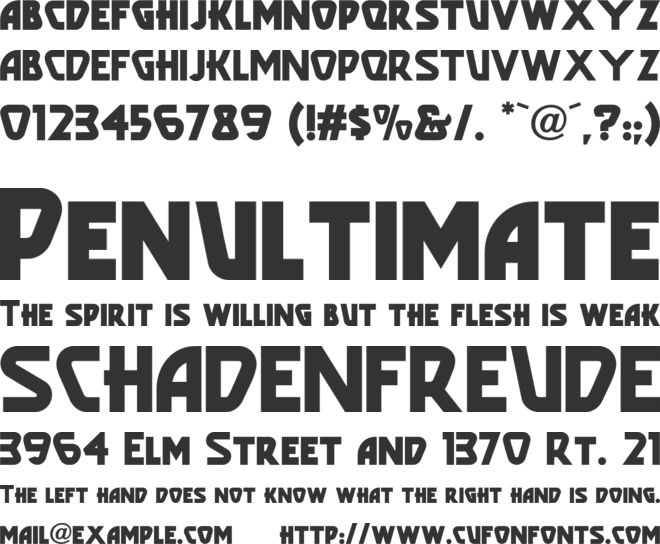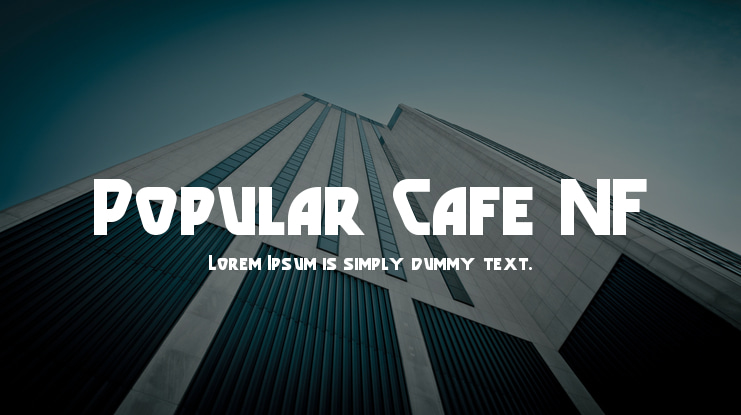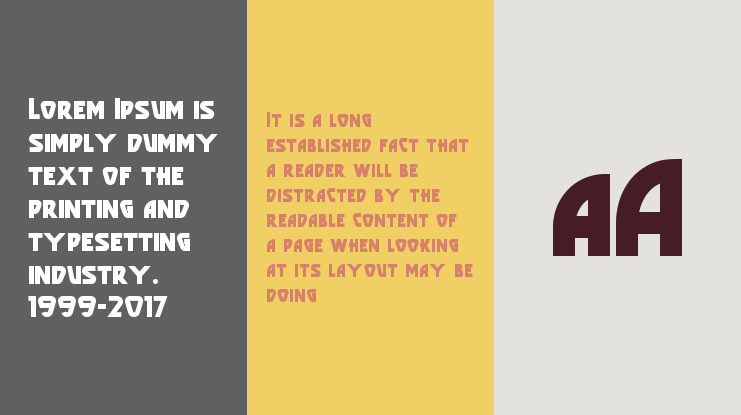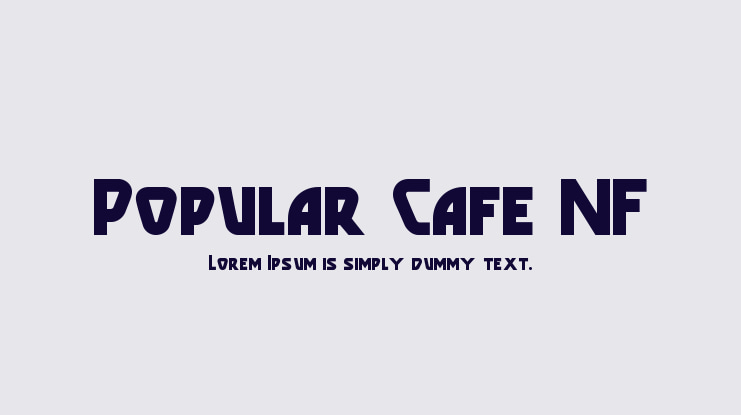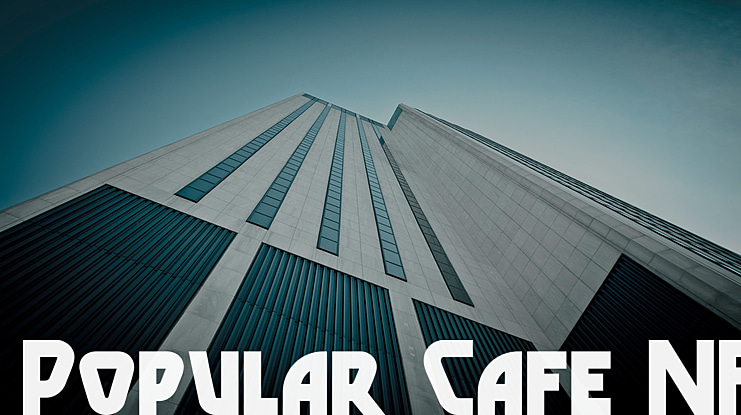
Hereâs an exotic font, inspired by posters designed in 1927 by an artist known simply as Rae for a popular café in Londonâs Piccadilly Circus, known as â can you guess? â The Popular Café. One poster advises that it will cost you nothing to dance the Blues away at their establishment â visitors taking dinner, supper or tea may dance at no extra charge. Those were the good old days!